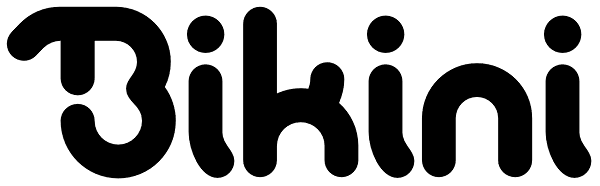
Bikini
Bikini is a display-font that offers designers a variety of opportunities to create a lively and sophisticated typography. The font contains swash-capitals and roman capitals as well as two different forms of lowercase letters for endless...